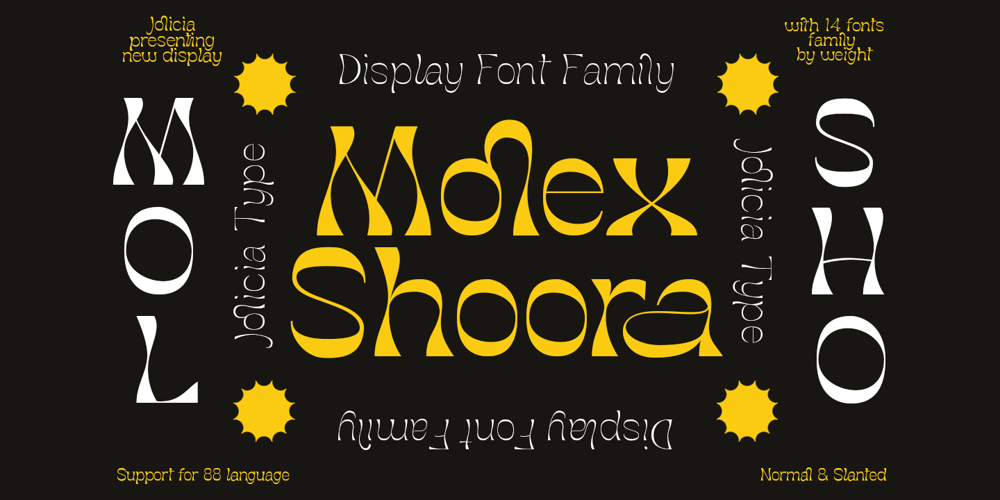
Molex Shoora
Molex Shoora font
Molex Shoora Font Family was designed by Laire Banyu, Dyaharum Pungki Revitasari and published by Jolicia Type. Molex Shoora contains 14 styles and family package options. Molex Shoora is a typeface that is inspired by retro-style writing. We make each element with a unique style, made on the top and bottom edges thick and in the middle it starts to thin which is consistent with each letterThere are 14 font family for the choice of the desired letter design31 ligatures combined with each other add to the fun style410 total glyphsSupport 88 languages:Afrikaans Albanian Asu Basque Bemba Bena Breton Catalan Chiga Colognian Cornish Croatian Czech DanishDutch Embu English Esperanto Estonian Faroese Filipino Finnish French Friulian Galician German GusiiHungarian Indonesian Irish Italian Kabuverdianu Kalaallisut Kalenjin Kamba Kikuyu Kinyarwanda LatvianLithuanian Lower Sorbian Luo Luxembourgish Luyia Machame Makhuwa-Meetto Makonde Malagasy MalteseManx Meru Morisyen North Ndebele Norwegian Bokmål Norwegian Nynorsk Nyankole Oromo Polish PortugueseQuechua Romanian Romansh Rombo Rundi Rwa Samburu Sango Sangu Scottish Gaelic Sena Serbian ShambalaShona Slovak Soga Somali Spanish Swahili Swedish Swiss German Taita Teso Turkish Upper Sorbian Uzbek (Latin) Volapük Vunjo Walser Zulu